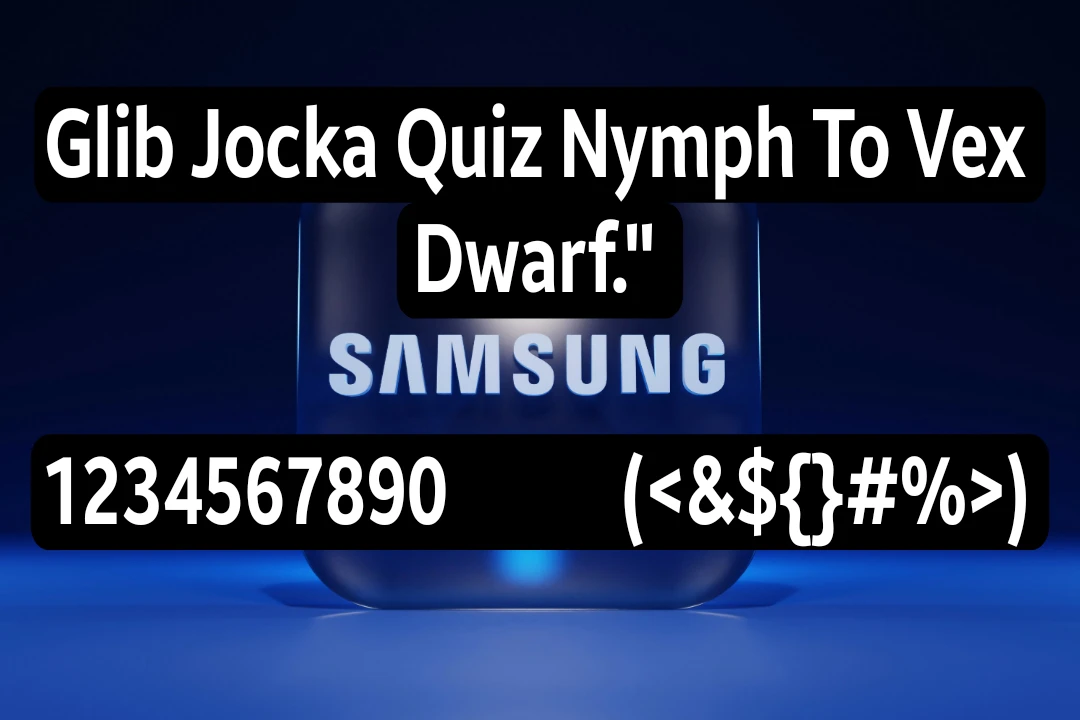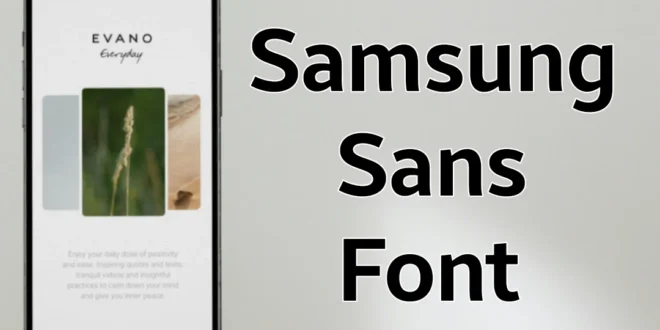
Samsung Sans Font was designed by Samsung Electronics in collaboration with Christian Schwartz of the renowned type foundry Commercial Type.
This sleek, modern sans-serif font was developed to create a unique visual identity for Samsung’s branding and user interfaces.
With a focus on clarity, readability, and innovation, Samsung Sans is used across a wide range of Samsung products, from smartphones to advertisements.
Usage of Samsung Sans Font
The clean, geometric design of Samsung Sans allows it to be highly legible on screens, making it a preferred choice for digital interfaces.
This unique texture was developed by Samsung’s in-house design team, reflecting the company’s specific needs and design philosophy. While it shares similarities with other modern sans-serif typefaces like United Sans Reg Bold Font.
If you’re working on UI design, branding, or web development, Samsung Sans offers a modern and professional touch to your creative projects.